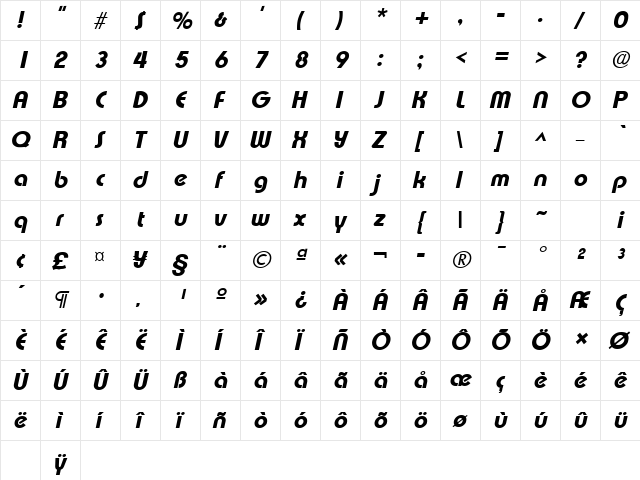
Expressa Bold Italic
Design Context for Expressa Typeface
Expressa offers clean, dependable letterforms without strong stylistic allegiance, making it a practical choice for designers who need flexibility. The slanted form adds forward momentum and visual energy. The heavy weight commands attention and anchors typographic hierarchies.
Pro Tip: Use Expressa for emphasis, pull quotes, and subheadings where its slanted energy can add rhythm to the layout.